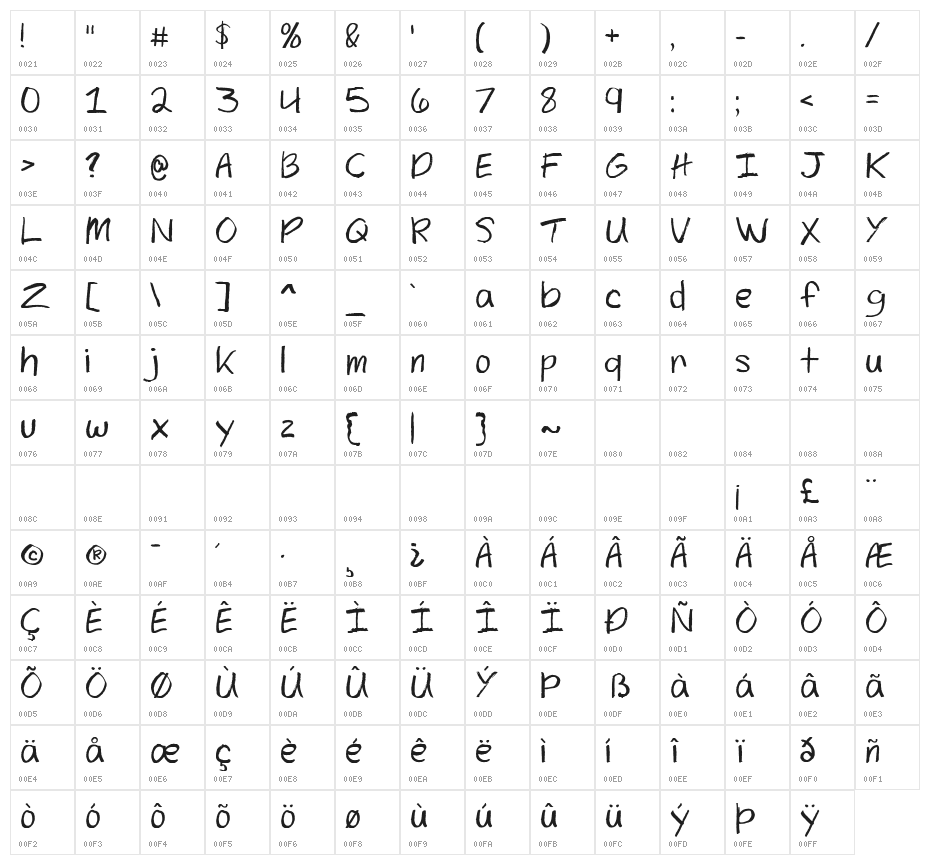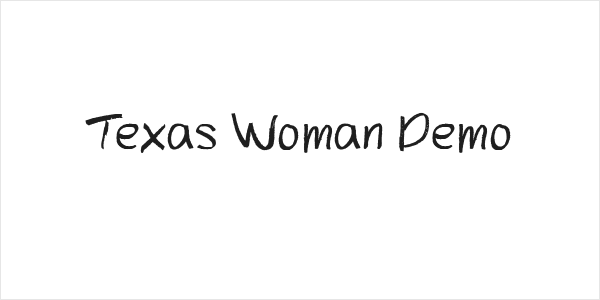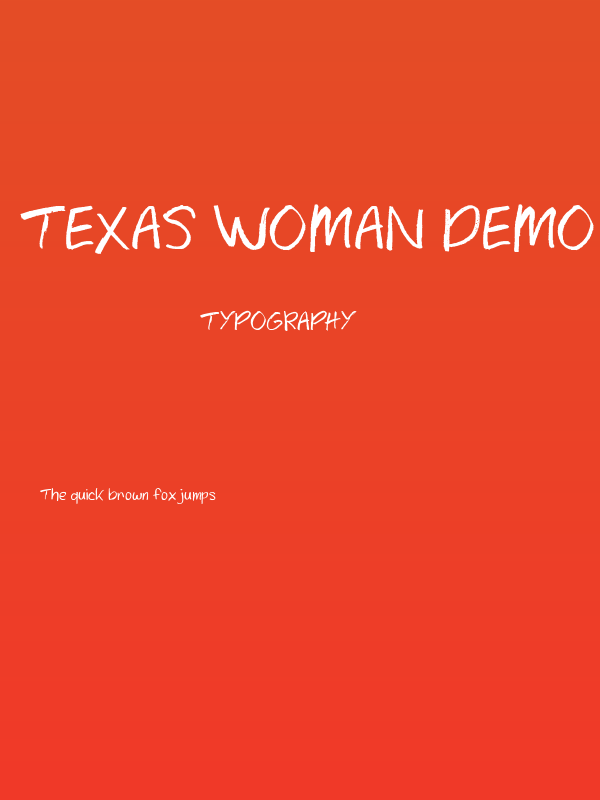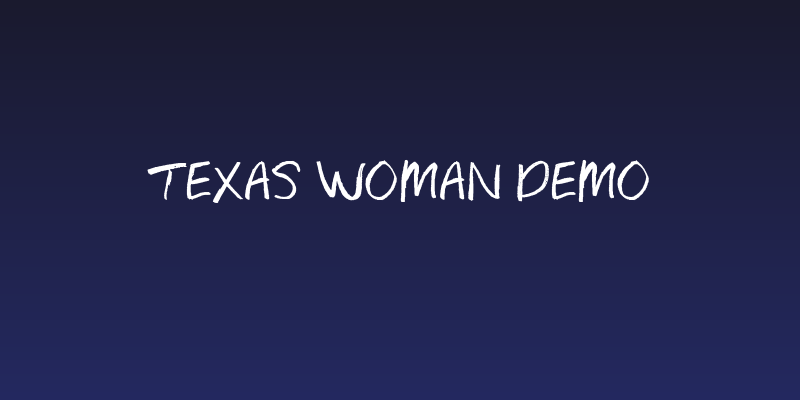
Texas Woman Demo Font
Texas Woman Demo Description
This font features a casual, handwritten style with a playful and informal appearance. The letters are slightly irregular, giving it a personal and approachable feel. The strokes are consistent in width, providing a uniform look across all characters. The uppercase and lowercase letters maintain a cohesive style, with rounded edges and a slight slant, enhancing its handwritten aesthetic. Numbers and special characters follow the same design principles, ensuring a harmonious overall appearance. This font is ideal for projects that require a friendly and relaxed tone.
| Use Case | Headlines, Informal text, Personal projects |
| Proposed Projects | Ideal for greeting cards, personal notes, informal branding, and social media graphics. |